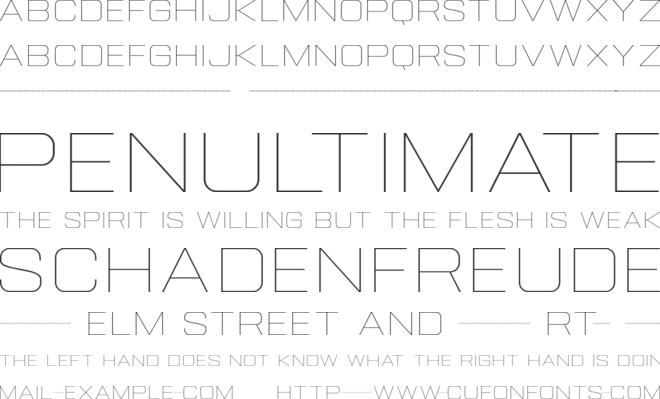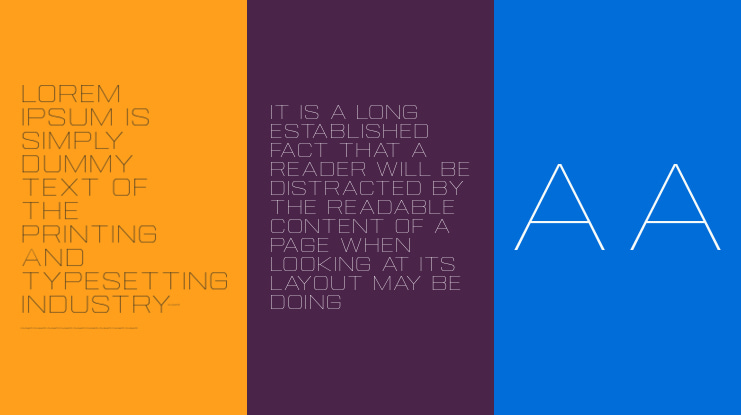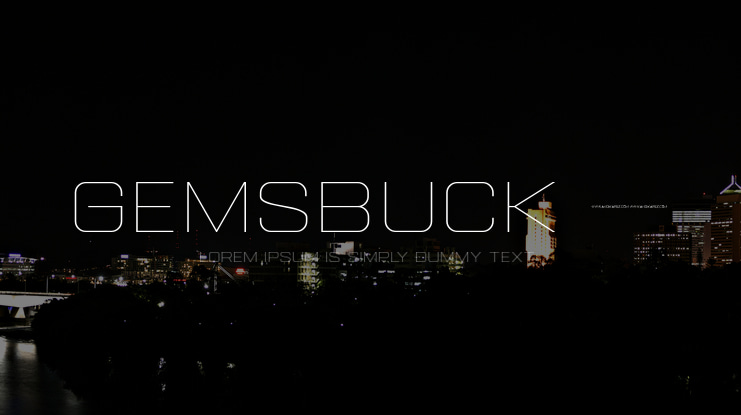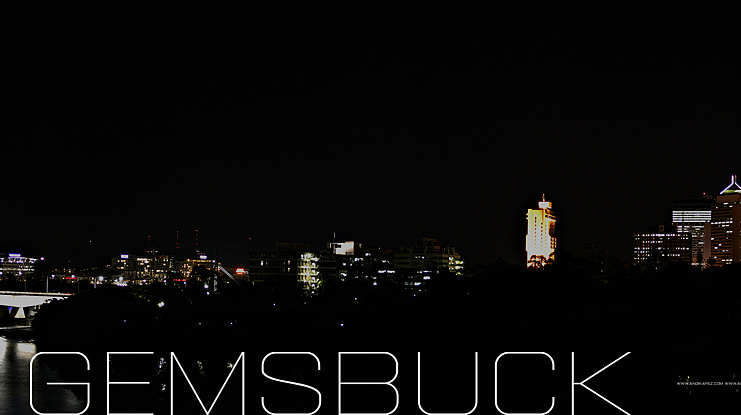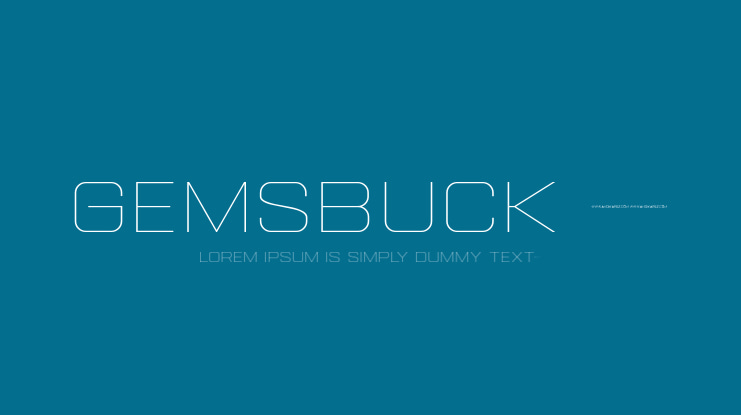
Gemsbuck 01 Font
Just like a grandmother's recipe, Gemsbuck combines a variety of cooking spices (from the graphic design trends that occurred in the 1920s, 1970s to the 20th century) which are mixed into a graphic design kitchen that gives a charming retro and modern taste quality at the same time.
Introducing the new and fresh modern industrial font, Gemsbuck.
The variety of weights of this font from thin to black provides a variety of options that help you to find the best typography color for your creative project. Gemsbuck is specially designed for the need for big visuals and deep emotional impact.
The variety of options from condensed to expanded and from thin to black gives you the freedom to create something extraordinary that has never been thought of before. Gemsbuck lends its thick voice to all its users for something louder and bolder.
The impression that Gemsbuck wants to give is a firm sans serif that is usually used for industrial needs but also relaxed. Gemsbuck is a collection of modern industrial font that contains more than 40 fonts that will provide various colors that will color the user's project